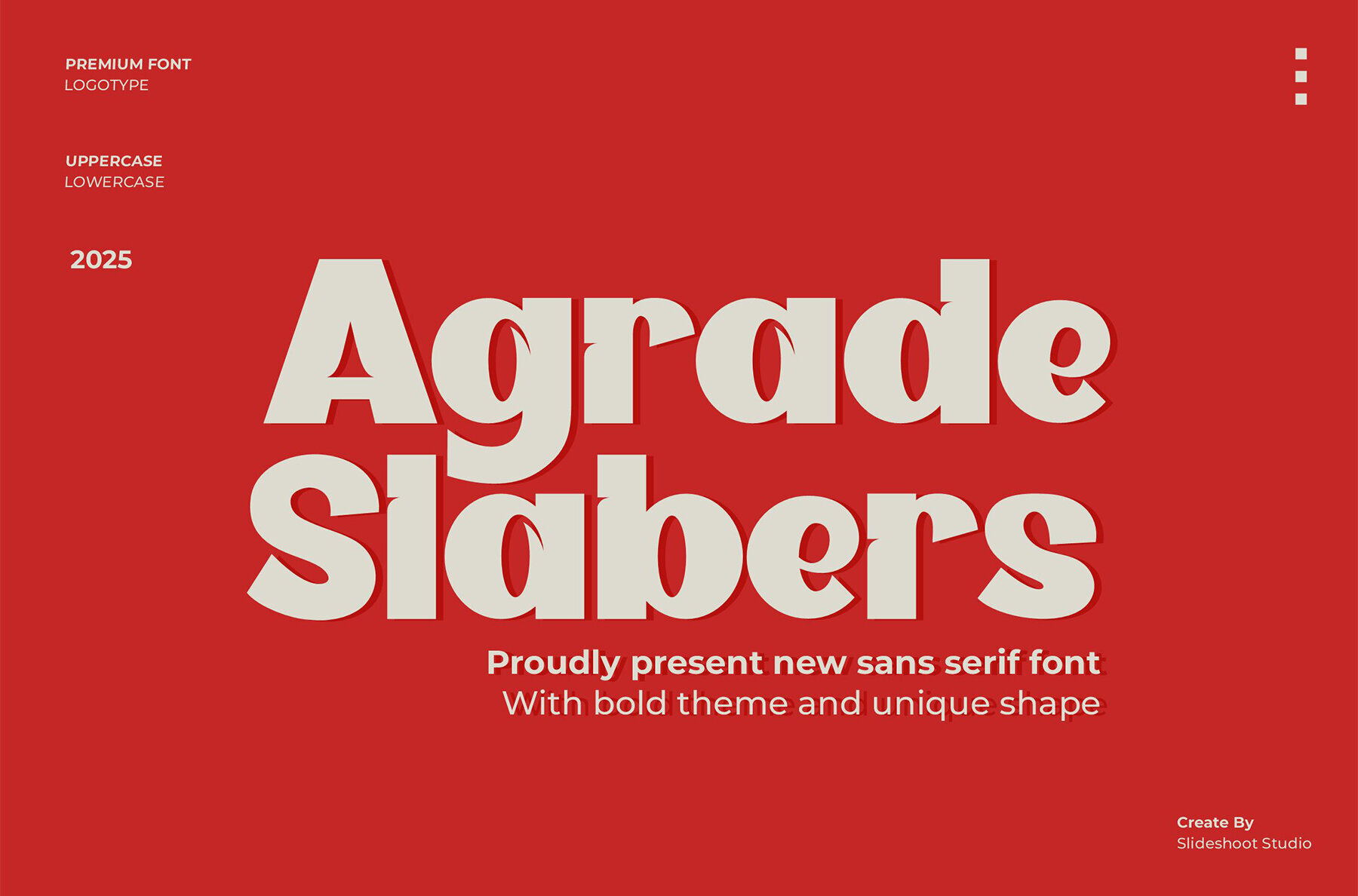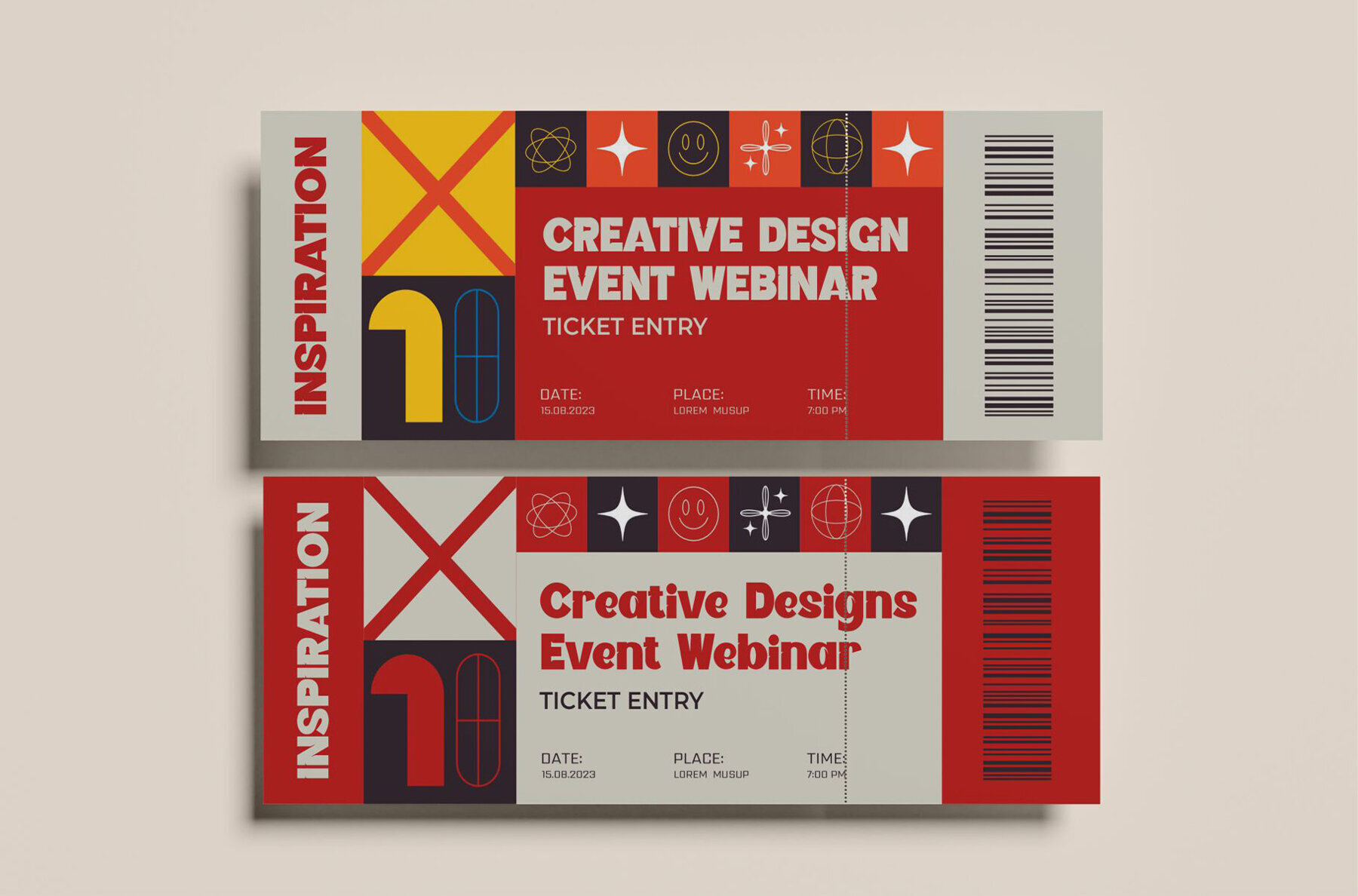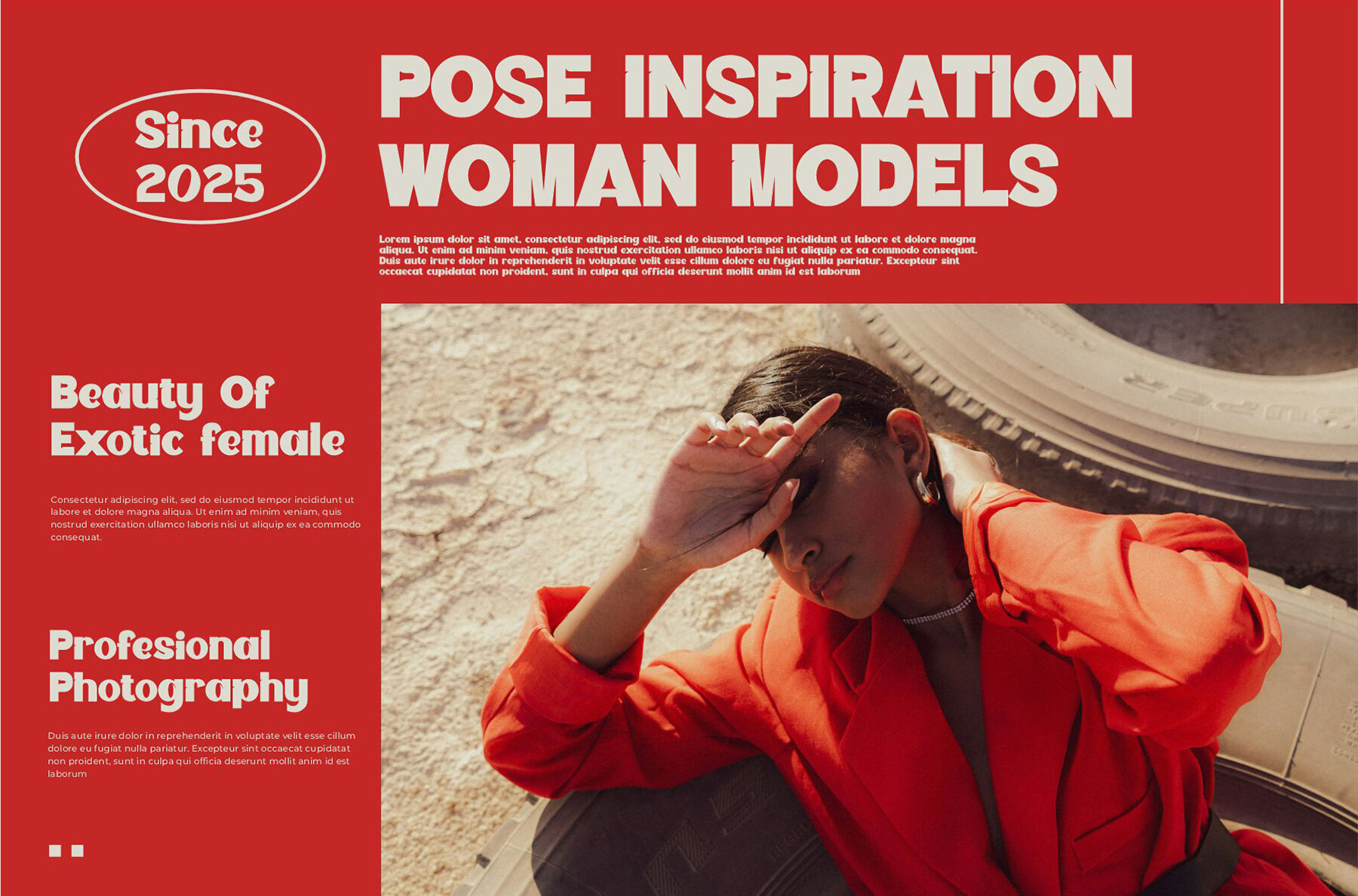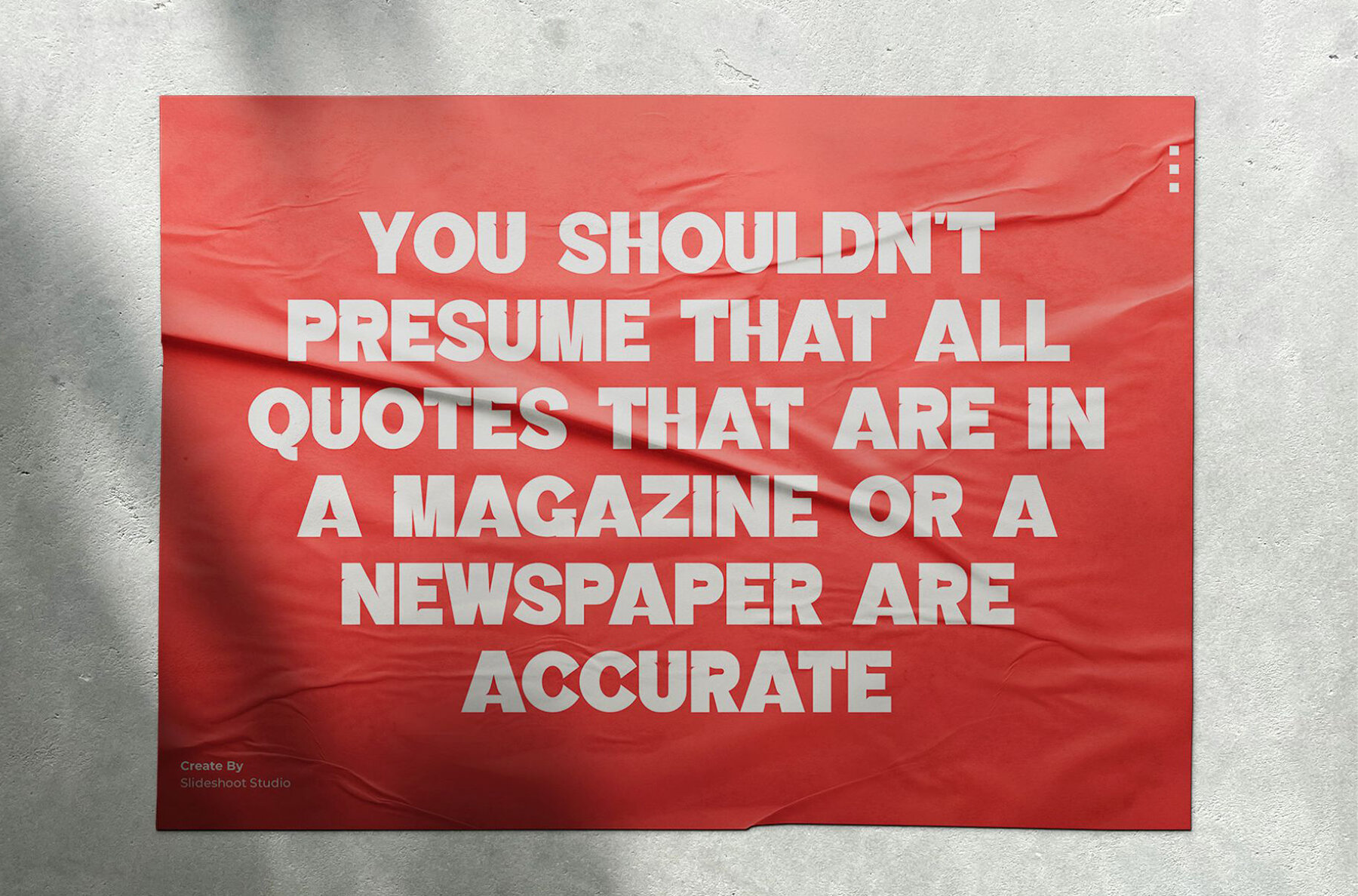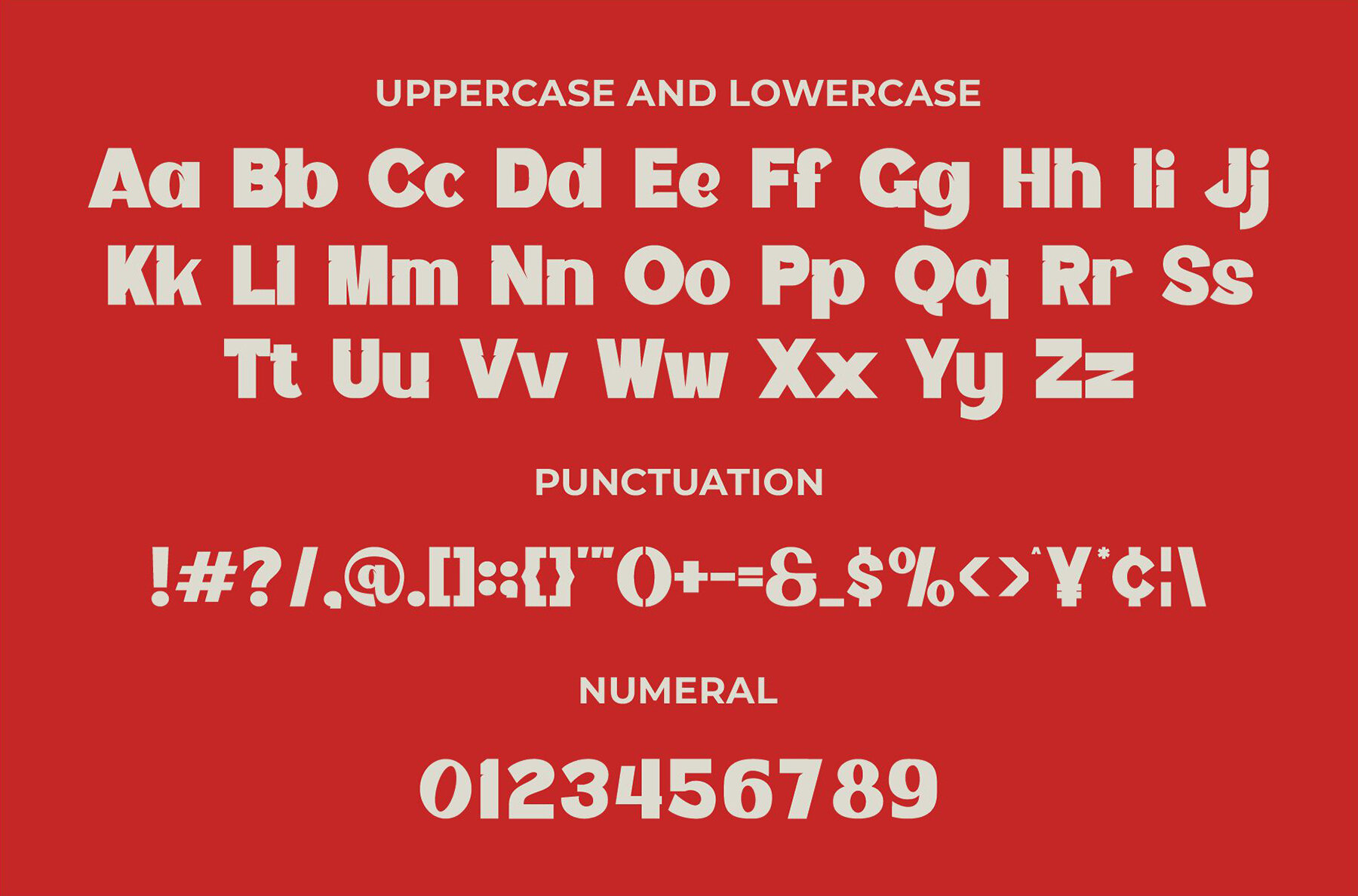
Agrade Slabers Font
Agrade Slabers
Discover Agrade Slabers, a bold sans serif font that brings a modern and trendy edge to your design projects. With its bouncy and playful character, enhanced by a distinctive wood theme, this font adds a unique touch to any creative work. Perfect for enhancing invitation cards, company logos, movie titles, business cards, and book titles.Agrade Slabers: Bold with Unique Flair